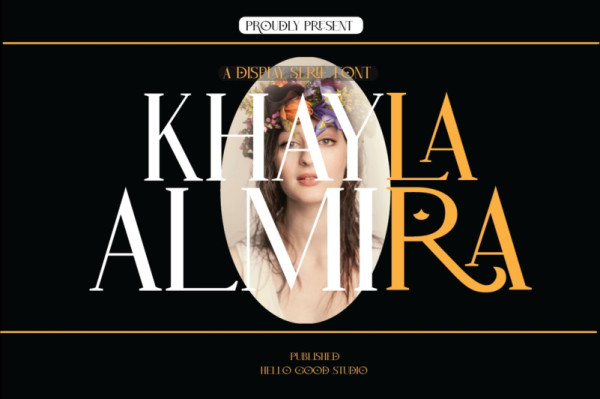
Khayla Almira Font
Khayla Almira Font is a modern and cool serif typeface. No matter the topic, this font will be an incredible asset to your fonts’ library, as it has the potential to elevate any creation.